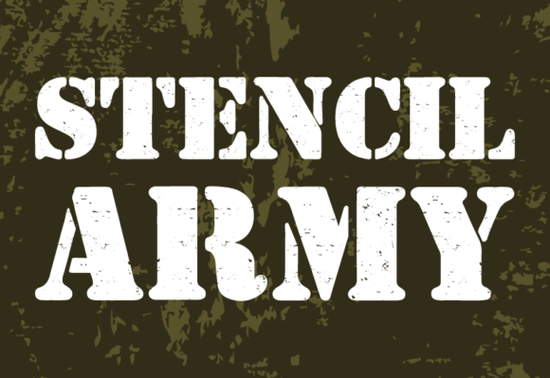
The Stencil Army Font is a bold sans-serif typeface built for projects that need a tough, military-inspired edge. It features thick, broken letterforms with a distressed texture that gives each character a rugged, worn-in look. While it draws from the stencil typography tradition used on military crates and signage, this font goes further adding a slightly offbeat, modern feel that sets it apart from typical army-style typefaces.
What Makes Stencil Army Different from Other Military Fonts?
Most military fonts follow a predictable pattern blocky, squared-off letters with clean stencil cuts. The Stencil Army font takes that foundation and adds attitude. The lines are bold and unapologetic, but there's a deliberate roughness to the finish. Letters look like they've been through something weathered, scratched, or spray-painted onto a surface.
This distressed quality makes it feel more authentic than polished military typefaces. It's not trying to look new. It's trying to look real. That distinction matters when you're designing for audiences who respond to raw, honest visual language think outdoor brands, survival gear, tactical equipment, or action-themed content.
Compared to something like a classic display typeface with elegant proportions, Stencil Army occupies a completely different space. Where that font might suit wine labels or boutique branding, this one is built for impact and attitude.
Where Does This Font Work Best?
The Stencil Army font works well across a range of creative and commercial projects:
- T-shirt designs especially for print-on-demand sellers targeting military, fitness, or streetwear niches
- Poster and flyer layouts for events, airshows, gaming tournaments, or themed parties
- YouTube thumbnails and social media graphics where you need text that grabs attention at small sizes
- Gaming-related content logos, overlays, or channel branding for war game and FPS streamers
- Packaging and labels for rugged, outdoor, or adventure-themed products
- Scrapbooking and DIY crafts especially veteran appreciation pages or patriotic projects
Does It Work for Print-on-Demand Sellers?
Absolutely. If you sell on platforms like Merch by Amazon, Redbubble, or Etsy, having a few strong display fonts in your toolkit makes a real difference. The Stencil Army font is the kind of typeface that can anchor an entire design on its own you don't always need complex illustrations when the lettering carries enough visual weight.
A few tips for POD use:
- Keep designs simple. Let the font do the heavy lifting. A strong word or short phrase in this typeface can be enough.
- Test at different sizes. The distressed texture reads differently depending on scale. Make sure it looks good both small on a mug and large on a hoodie.
Can You Pair It with Other Fonts?
Font pairing is where things get interesting. The Stencil Army typeface is loud by nature, so it works best alongside fonts that don't compete for attention. A clean, simple sans-serif for body text or a subtle script for accent words can balance the composition nicely.
For romantic or elegant design projects where you need strong contrast, options like Paris Treat Font or a refined display typeface offer completely different moods. Mixing a bold military font with a delicate one can create visually striking results particularly for event invitations, themed merchandise, or editorial layouts.
You could also try pairing it with something fun and lighthearted. The Banana Cupcake Font brings a playful, rounded energy that contrasts sharply with stencil roughness. Check out this cheerful sans-serif alternative if you want to experiment with unexpected combinations.
And if your project calls for a touch of romance or sophistication to offset the military grit, a graceful decorative typeface with flowing details can provide that softer counterbalance. The Amour Magnifique Font works beautifully in that role.
For a deeper look at how this style developed, Stencil Army has its roots in practical lettering the Wikipedia entry on stencil typography gives a solid historical overview.
Is This Font Right for Your Next Project?
Ask yourself these questions:
- Does your design need a bold, commanding visual presence?
- Are you targeting an audience that appreciates rugged, military-inspired aesthetics?
- Do you want a font that works without needing extra design elements around it?
- Is a distressed, textured finish more fitting than a clean, polished look?
If you answered yes to most of these, the Stencil Army font is worth downloading. It fills a specific niche that generic sans-serif fonts simply can't match.
Start with one simple design a single word or short phrase and build from there. Sometimes the best projects begin with one strong typeface and a clear idea.